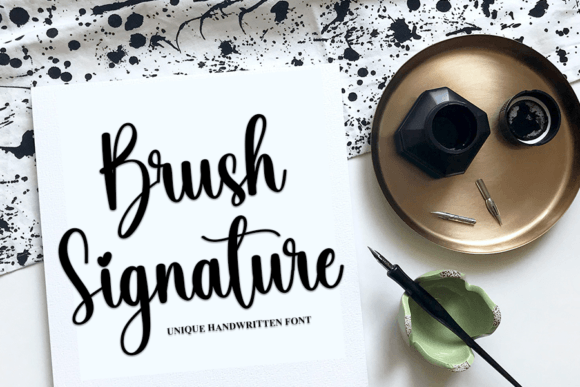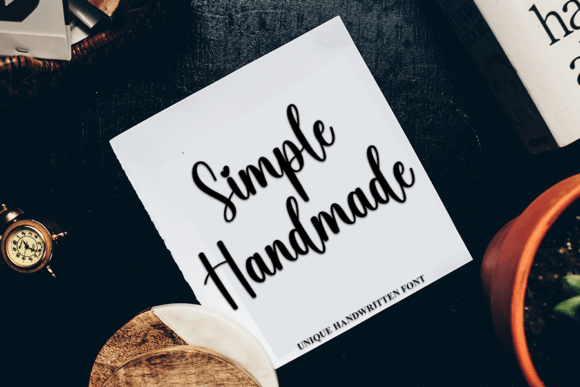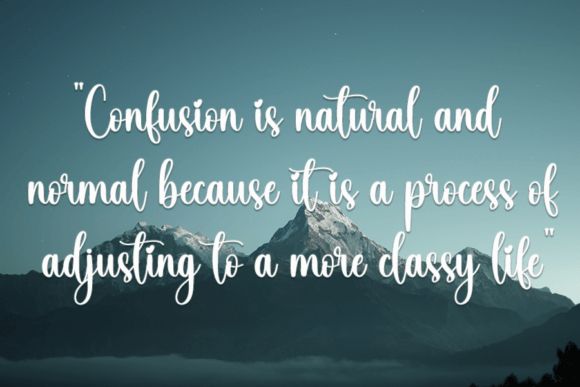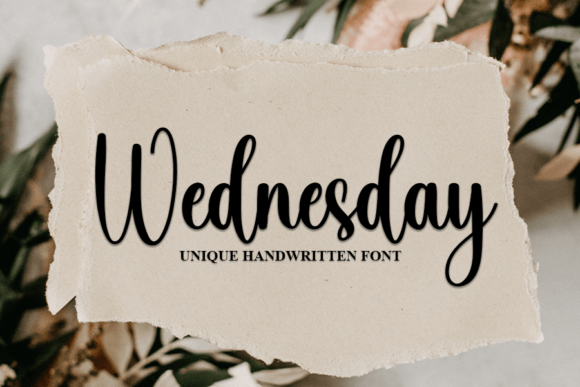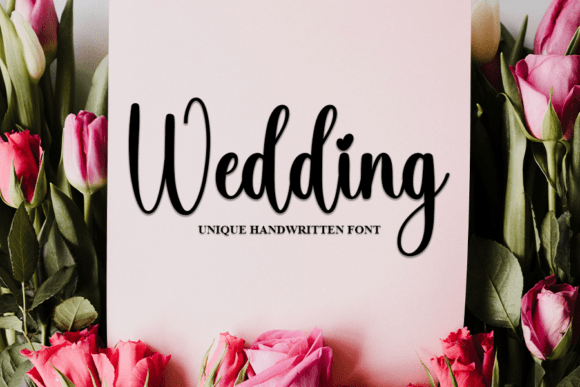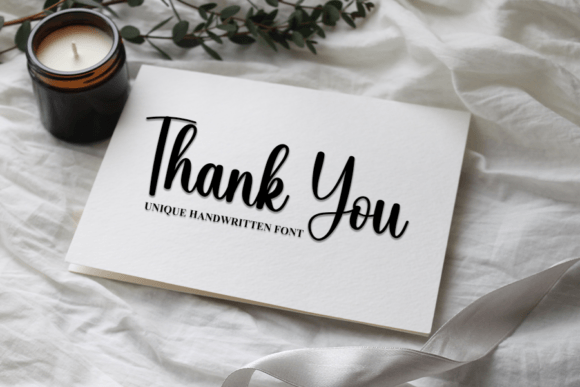
The Perfect Companion for Your Creative Projects: Bestie Font
Have you ever sat down with a blank canvas or a blank page, feeling stuck and unsure of how to bring your idea to life? That’s where the magic happens – and it starts with the right tools. For designers, writers, and crafty enthusiasts, the right font can be the difference between a good project and a great one.
Enter the Bestie Font, a cool and modern handwritten font that’s perfect for any occasion. Whether you’re creating greeting cards, digital designs, or presentations, this font has the potential to be your go-to choice. Its unique and playful style makes it versatile and valuable for designers who want to add a personal touch to their projects. With the Bestie Font, you’ll be able to express your creativity and bring your ideas to life in a way that’s both stylish and effective.
Bestie Font Key Features
- Unique Characteristics: Bestie Font features a distinctive, handwritten style with varying line widths, creating a friendly and approachable feel in designs.
Bestie Font Review
First off, let me say that Bestie Font has some great qualities. ✨ The font is super friendly and approachable, making it perfect for use in social media, blogs, or any other platform where you want to create a welcoming atmosphere. The letterforms are rounded and easy to read, even at smaller font sizes.
The font also has a wide range of weights, from light to bold, giving you plenty of options for customization. ✨ The italics are also well-designed, adding a touch of elegance to any text.
Now, let’s talk about the limitations. ⚠️ One of the biggest drawbacks is that Bestie Font can look a bit too playful for some applications. If you’re looking for a font that’s more serious or professional, you might want to consider something else. Additionally, the font’s rounded edges can make it difficult to read at very small sizes or in certain contexts.
Here are some specific pros and cons:
- ✨ Friendly and approachable design
- ✨ Wide range of weights and italics
- ⚠️ Can look too playful for serious applications
- ⚠️ Difficult to read at very small sizes or in certain contexts
Overall, I’d say Bestie Font is a great choice for designers who want to create a fun and welcoming atmosphere. Just be mindful of its limitations and use it in the right context.
Getting the Most Out of Bestie Font
For the best results, use Bestie Font in conjunction with bold or italic styles to create emphasis. Experiment with different font sizes and colors to add visual interest to your designs.
Bestie Font is ideal for creating eye-catching social media posts, promotional flyers, and product labels. It’s also a great choice for designing menus, posters, and other attention-grabbing materials.
Alternatives to Bestie Font
Lato is a modern sans-serif font that is highly legible and versatile. It is ideal for use in headings, titles, and body text. Lato is a great alternative to Bestie Font as it provides a similar feel but with a more streamlined and minimalist design.
Alegreya
Alegreya is a beautiful and elegant serif font that is perfect for use in publications, magazines, and books. It has a warm and inviting feel that makes it suitable for use in body text and headings. Alegreya is a good alternative to Bestie Font as it provides a more sophisticated and refined look.